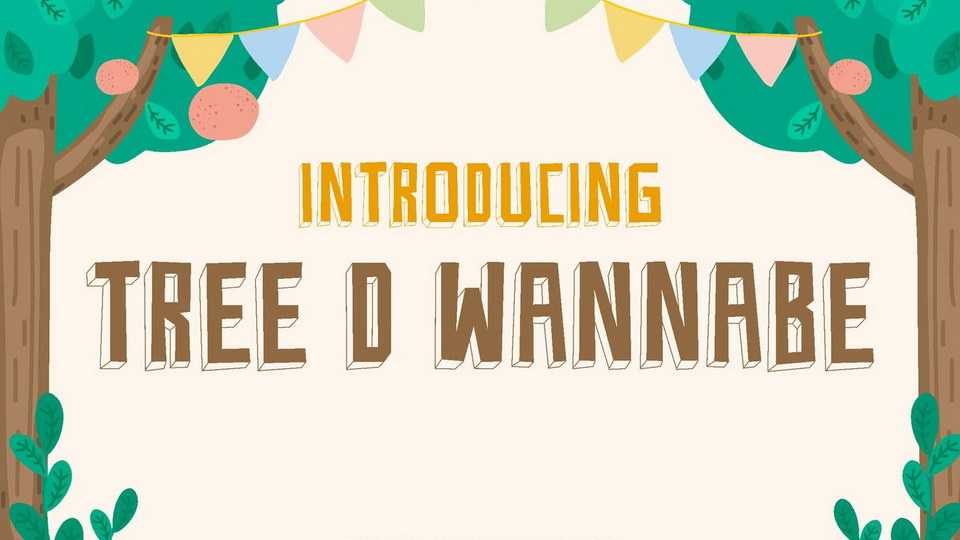
Download Tree D Wannabe font, a display typeface, just like it’s name, this quirky little font, is living it up his name. Blocky shape and with that extruded style, still cute enough for kiddies.